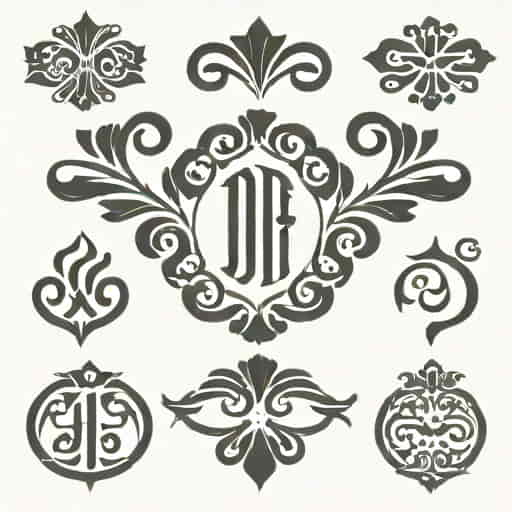
Df Calligraphic Ornaments Font
The DF Calligraphic Ornaments font is a unique typeface that combines the elegance of classic calligraphy with decorative elements, making it ideal for artistic projects, branding, invitations, and creative design work. This font stands out due to its intricate details, ornamental flourishes, and versatility in both digital and print applications. Designers and typographers often use DF Calligraphic Ornaments to convey sophistication, tradition, and style, while adding a visually appealing decorative touch. Whether applied to wedding invitations, logos, packaging, or social media graphics, this font enhances any project by bringing a sense of craftsmanship and elegance. Understanding its features, usage, and design potential can help creatives make the most of DF Calligraphic Ornaments in their work.
Overview of DF Calligraphic Ornaments Font
DF Calligraphic Ornaments is more than just a font; it is a collection of meticulously crafted glyphs, decorative swashes, and flourishes that complement each letterform. Each character is designed to mimic traditional calligraphy, combining flowing strokes with artistic embellishments. The font supports both uppercase and lowercase letters, numerals, punctuation, and additional ornamental symbols, making it versatile for various design needs. Its aesthetic appeal lies in its ability to convey elegance while maintaining readability.
Main Features
• Intricate calligraphic design with ornamental flourishes
• Comprehensive set of glyphs including letters, numbers, and symbols
• Support for decorative swashes and stylistic alternates
• High-quality vector design suitable for print and digital media
The combination of these features makes DF Calligraphic Ornaments a valuable resource for designers seeking elegance and detail in their typographic projects.
Applications and Uses
DF Calligraphic Ornaments font is versatile and can be used in a wide range of creative projects. Its decorative style makes it suitable for any work where sophistication and ornamental design are desired. Designers can incorporate this font into both professional and personal projects, giving them a refined and artistic touch.
Popular Applications
• Wedding Invitations and Event StationeryThe ornamental elements add a luxurious feel to invitations, save-the-date cards, and menus.
• Branding and LogosBusinesses seeking a classic or high-end look can use the font to create distinctive logos or branding materials.
• Packaging DesignThe font can elevate product packaging, especially for perfumes, chocolates, and other premium goods.
• Social Media GraphicsEnhances posts, quotes, or announcements with elegant decorative touches.
• Posters and Print MaterialsIdeal for artistic posters, book covers, or greeting cards where ornamental typography is desired.
By applying DF Calligraphic Ornaments appropriately, designers can achieve a polished and visually engaging result.
Design Characteristics
The DF Calligraphic Ornaments font features flowing lines, carefully balanced proportions, and intricate swashes that enhance the visual appeal of each character. Its design combines traditional calligraphy techniques with modern digital precision, making it suitable for both classic and contemporary projects. The ornamental elements are carefully crafted to complement text without overpowering readability.
Key Design Traits
• Elegant and fluid stroke patterns
• Consistent weight and balance for smooth readability
• Decorative swashes that can be added to letters selectively
• Versatility for different design sizes, from small text to large headings
• Ability to mix standard and ornamental characters seamlessly
These traits make DF Calligraphic Ornaments a flexible and aesthetically pleasing font choice for various typographic needs.
DF Calligraphic Ornaments is designed for professional use in graphic design and digital publishing. The font is delivered in standard formats compatible with most operating systems and design software, ensuring easy integration into creative workflows. Advanced features such as OpenType support allow users to access additional glyphs, ligatures, and stylistic alternates for enhanced creative control.
• OpenType support for stylistic alternates and ligatures
Tips for Using DF Calligraphic Ornaments
To maximize the potential of DF Calligraphic Ornaments, it is important to use the font thoughtfully. Designers should consider factors such as context, size, spacing, and pairing with other typefaces. Overuse of decorative elements can lead to clutter, so balance is essential for effective design.
Practical Tips
• Pair with clean, simple fonts to create contrast and highlight ornamental elements
DF Calligraphic Ornaments font is a versatile and elegant typeface that combines traditional calligraphy with decorative elements, making it ideal for a variety of design projects. Its intricate glyphs, ornamental flourishes, and technical features allow designers to create visually compelling work for weddings, branding, packaging, social media, and print materials. By understanding its design characteristics, applications, and usage tips, creatives can fully leverage the beauty and functionality of DF Calligraphic Ornaments. Whether used sparingly for a refined touch or prominently in decorative headings, this font offers endless opportunities to enhance aesthetic appeal and elevate the overall impact of a project.